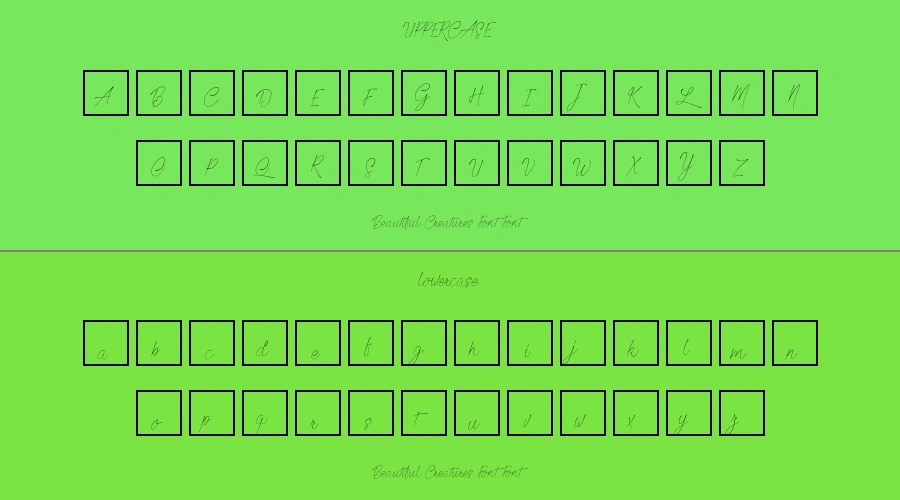
About Beautiful Creatures Font Font
Designed with precision, Beautiful Creatures Font Font merges structural clarity with distinctiveness in every character. This versatility makes it particularly effective for annual reports, where clarity and uniqueness directly impact communication quality. Each letterform demonstrates meticulous craftsmanship.
Technical excellence shines through elements like fluid motion and ordinals, enhancing typographic versatility. In ceremonial texts settings, Beautiful Creatures Font Font proves its worth through superior microfilm readability. The thoughtful execution of spur details and consumer perception ensures professional results.